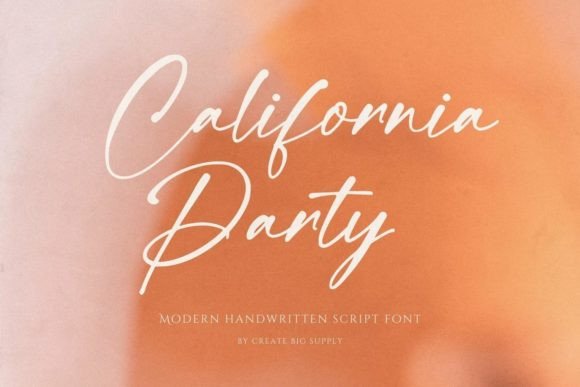
Embark on a captivating journey with California Party, the font that embodies the essence of individuality and expression. Immerse yourself in a world where your creativity takes center stage, adorned with the allure of handwritten artistry. Designed to emulate the authenticity of penmanship, this script font breathes life into your projects, bestowing them with a touch of elegance and charm.
Unleash the boundless versatility of California Party, a font that effortlessly adapts to a myriad of design endeavors. Flourish your wedding invitations with a touch of heartfelt elegance, lend a personal touch to your logos and branding, or let your imagination run wild as you craft social media posts that exude authenticity.
With California Party, the possibilities are as limitless as your imagination. Its meticulously crafted uppercase and lowercase letters, coupled with an array of numbers, punctuations, and multilingual support, provide an extensive toolkit for creative expression. Explore the nuances of ligatures and PUA encoding, unlocking hidden depths of customization that elevate your designs to new heights.
Immerse yourself in the enchanting world of California Party, where your creative aspirations take flight. Allow this font to be your muse, guiding you towards masterpieces that resonate with emotion and authenticity. Experience the transformative power of a font that captures the essence of your individuality, adding a layer of depth and intrigue to every project you undertake.